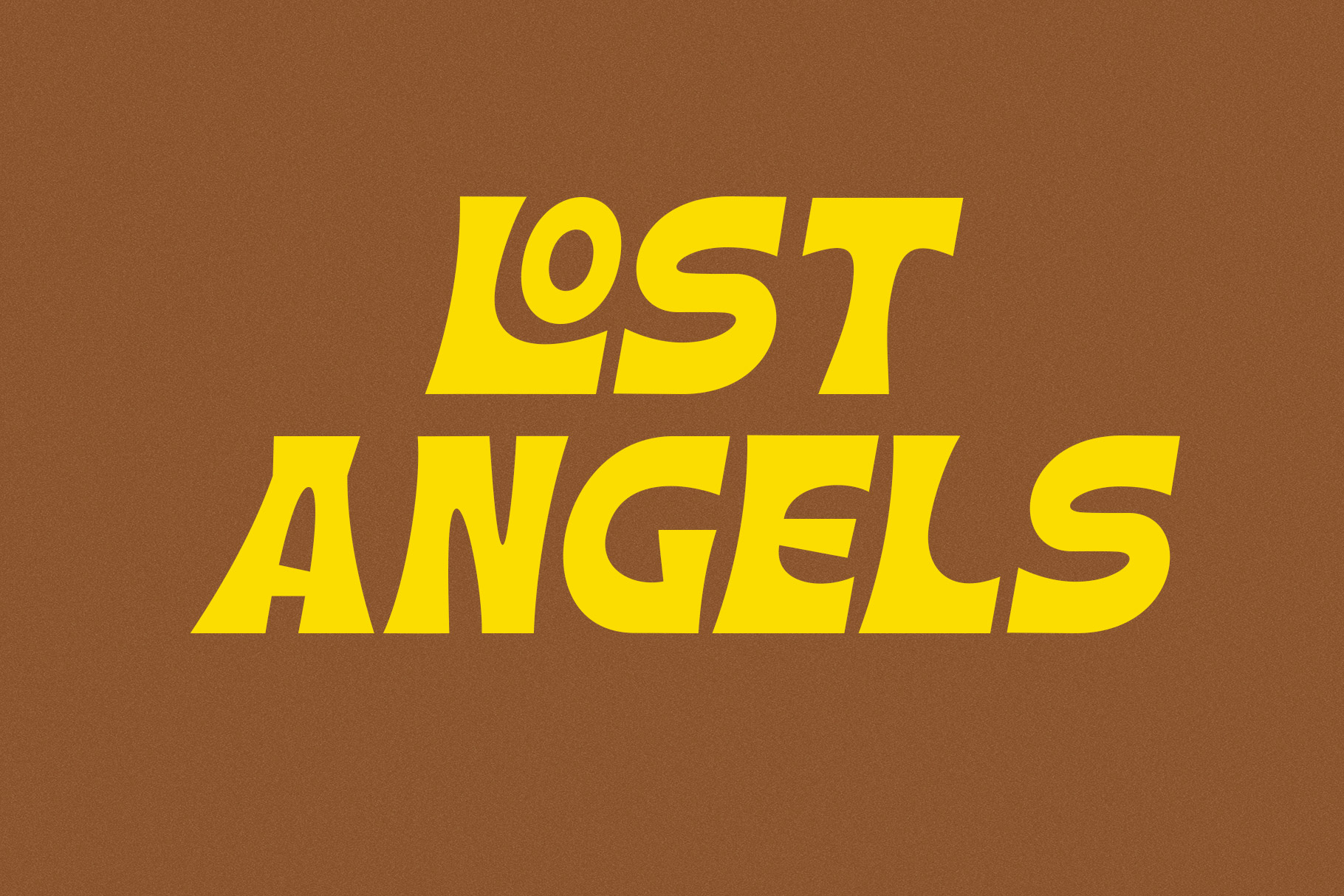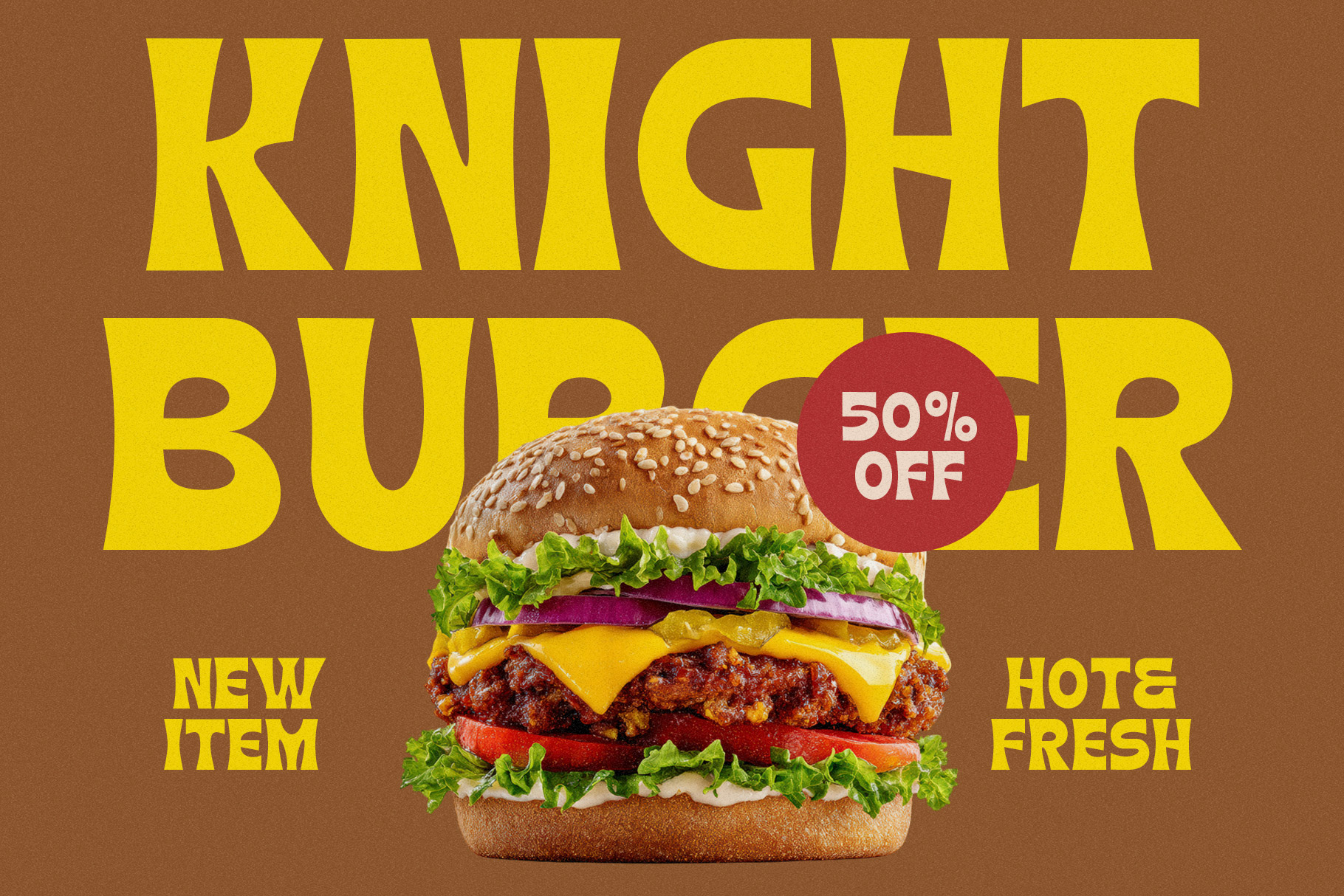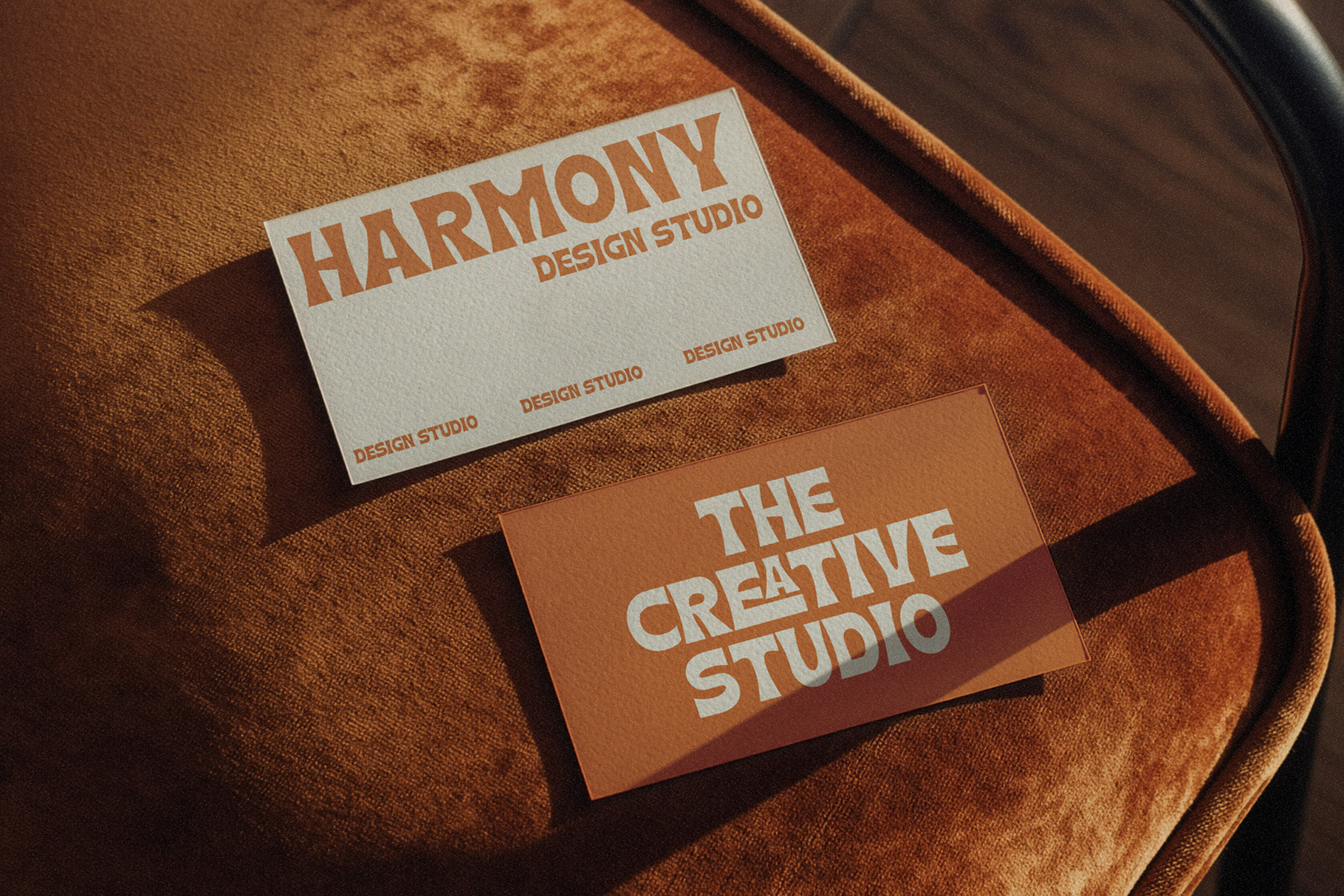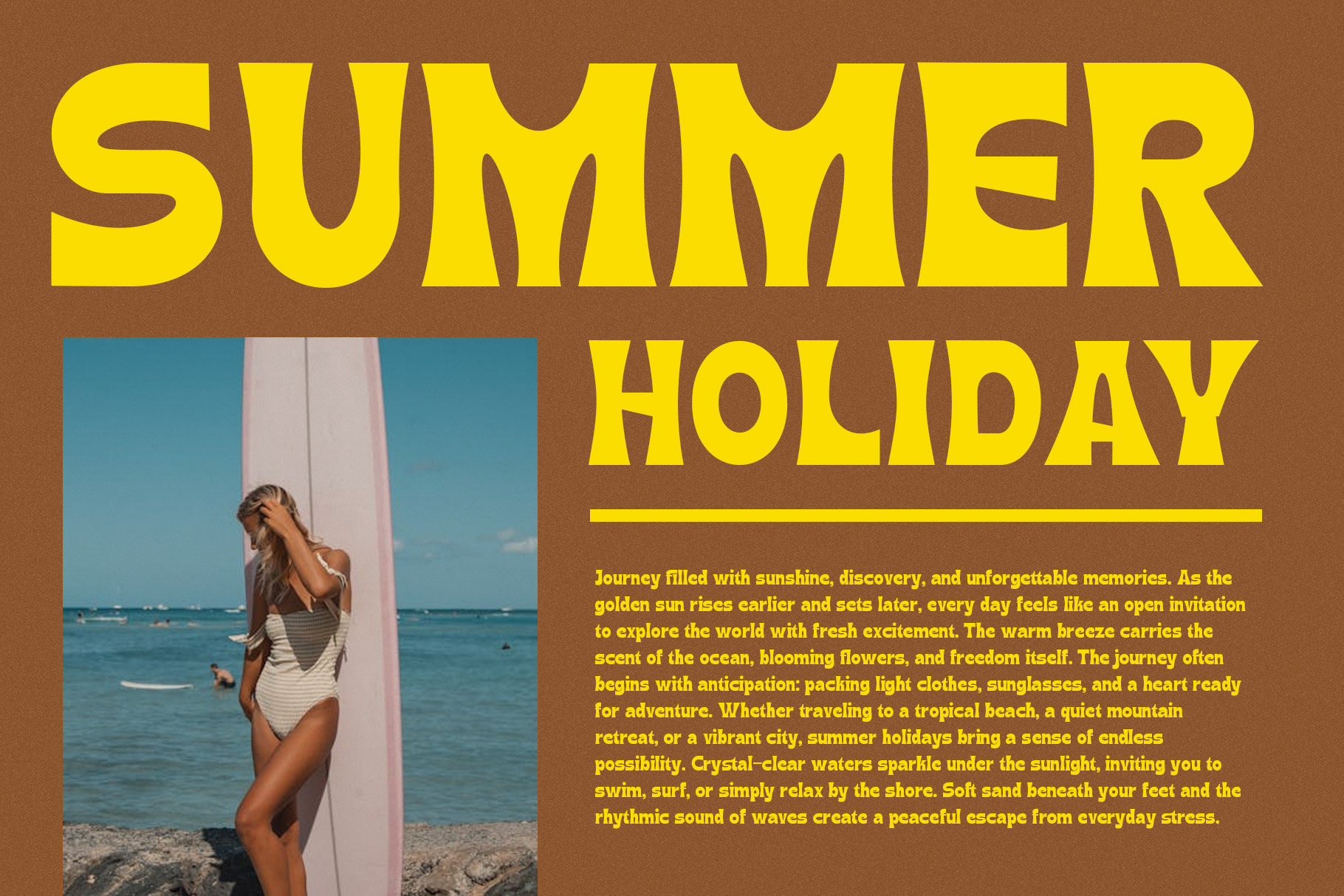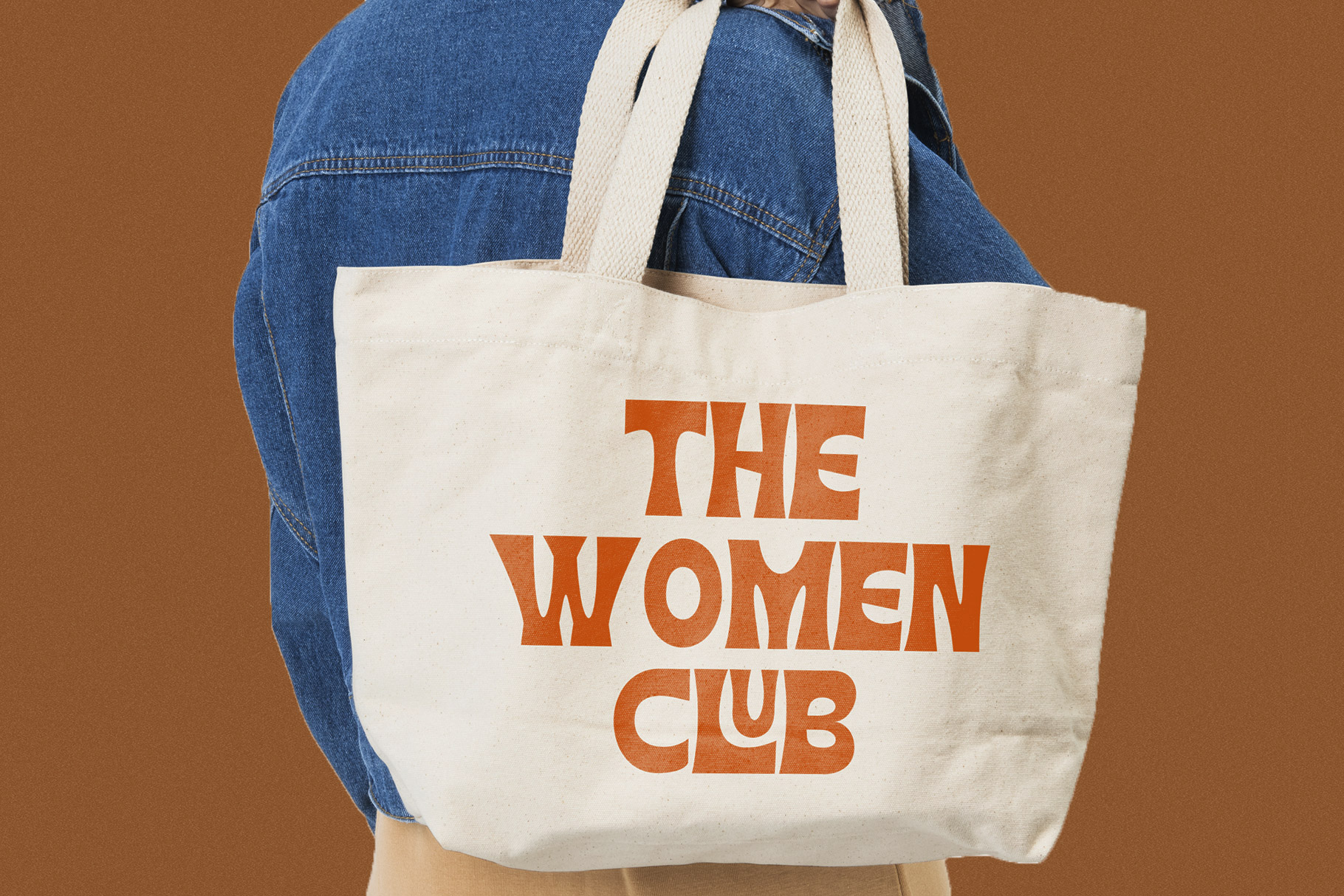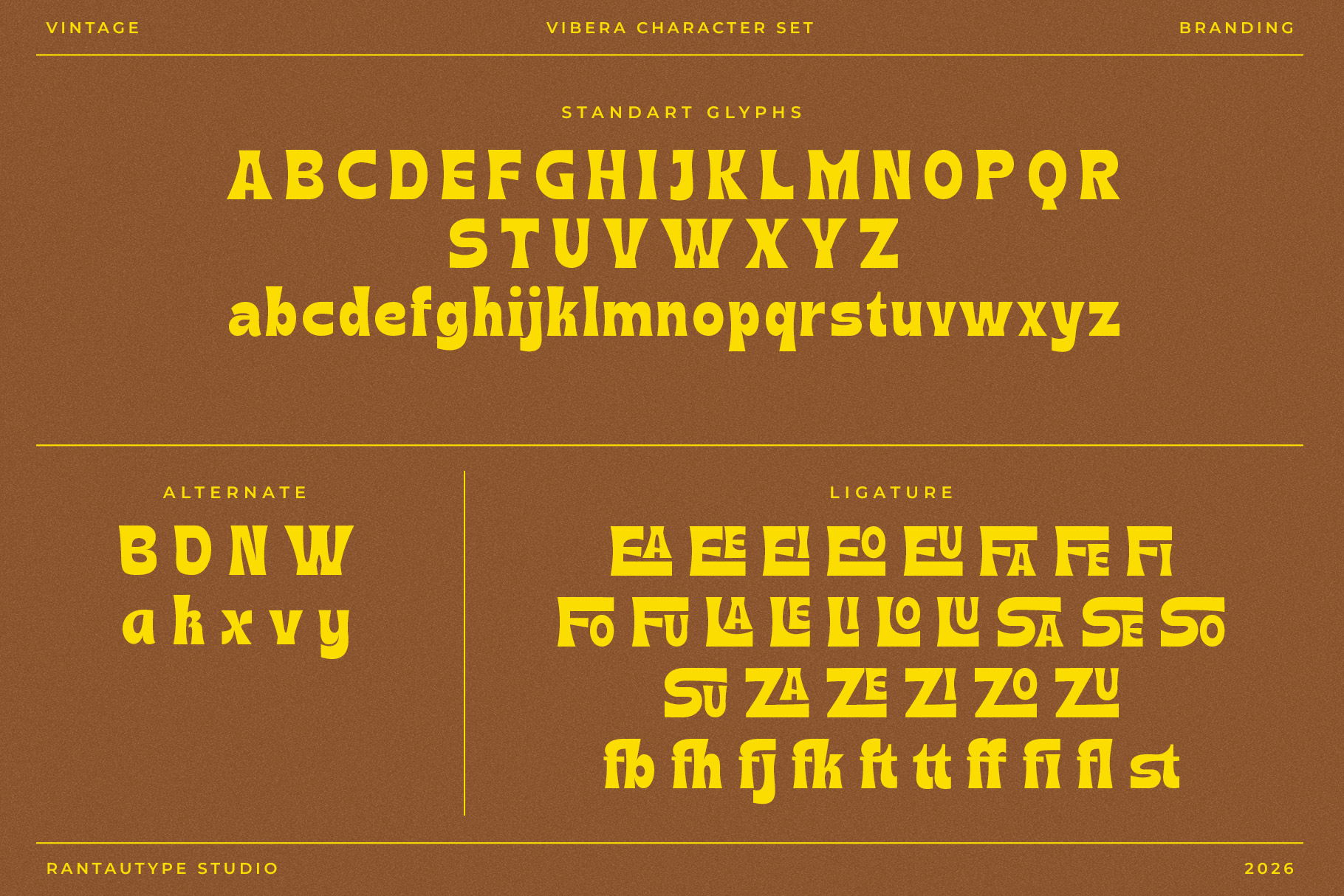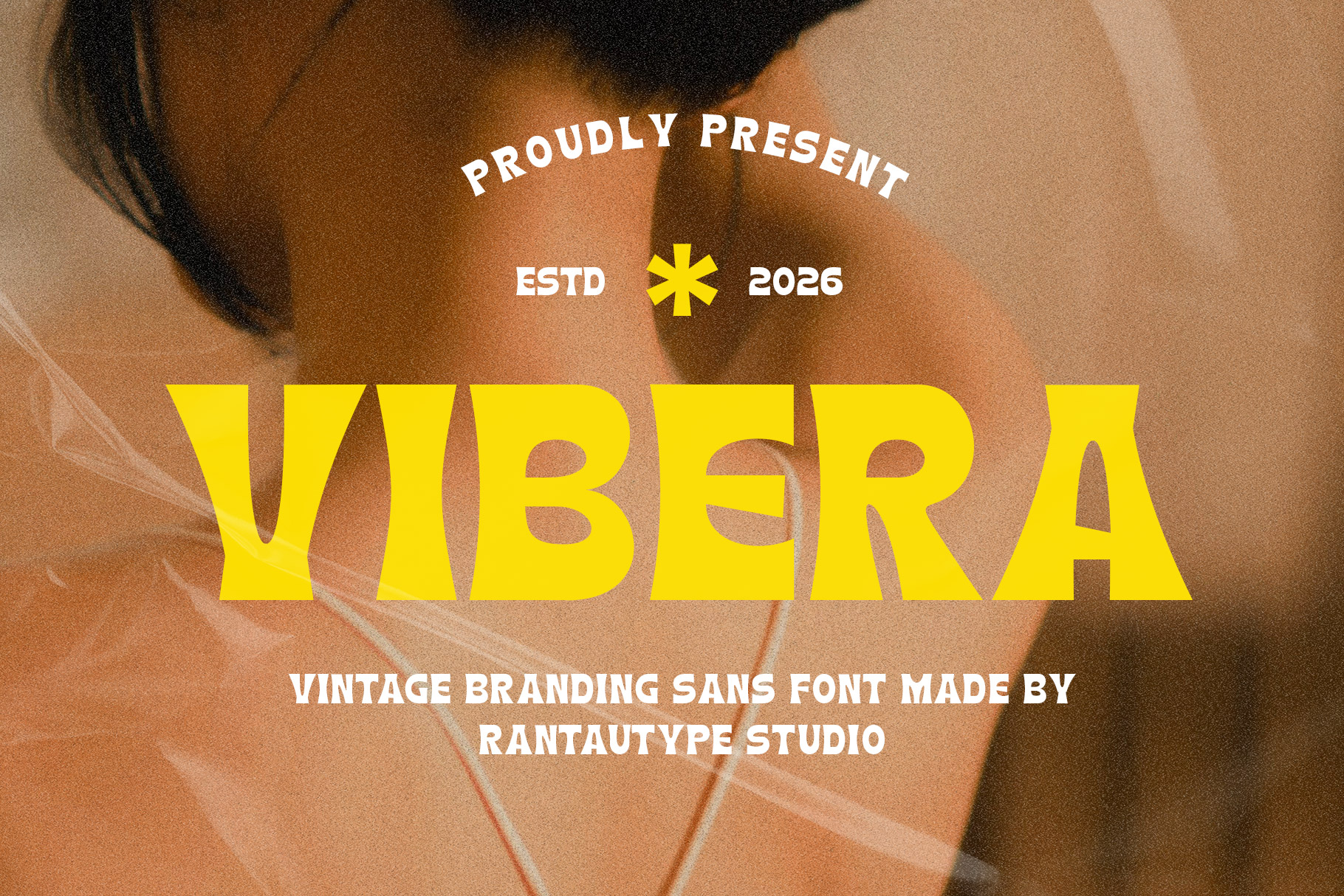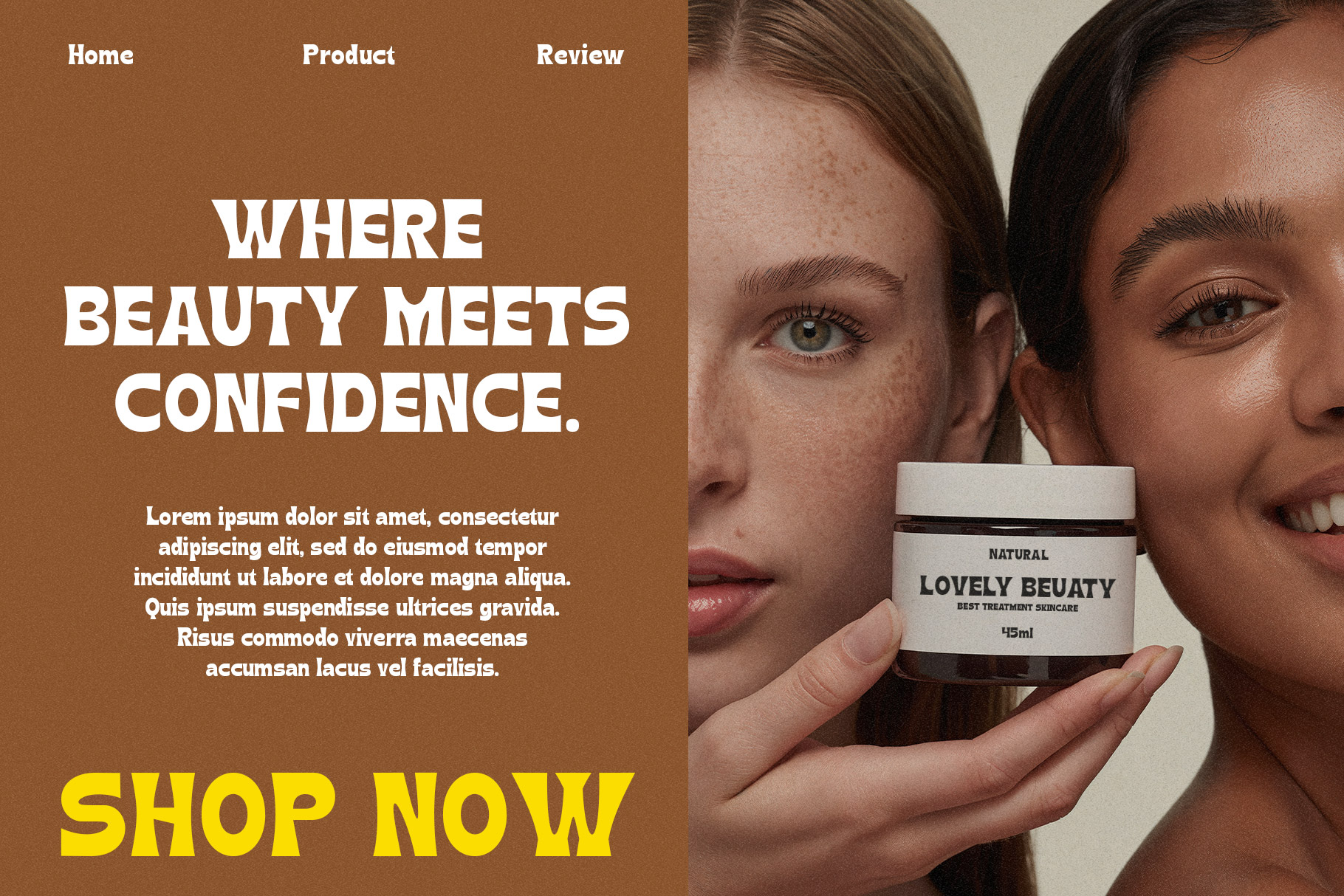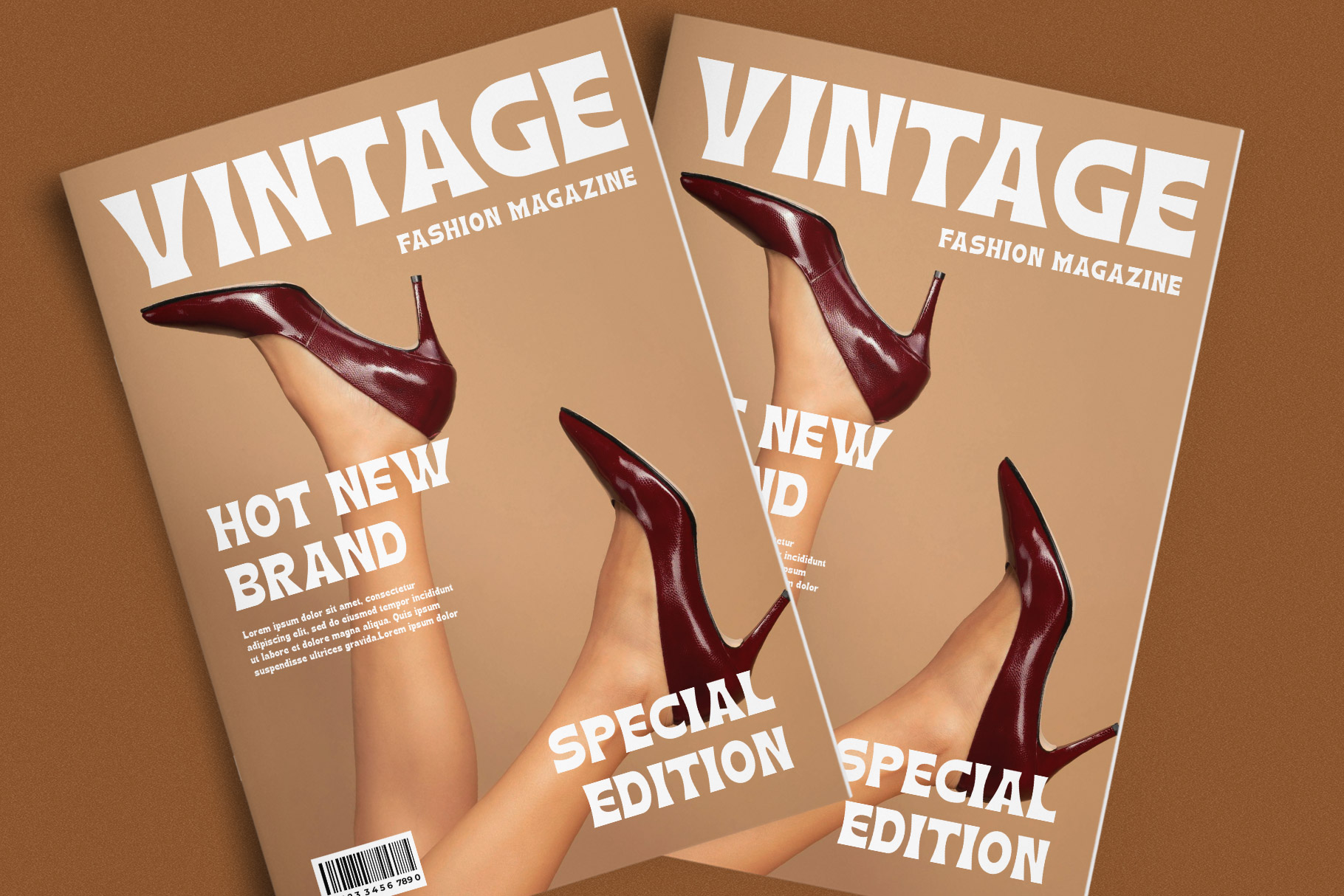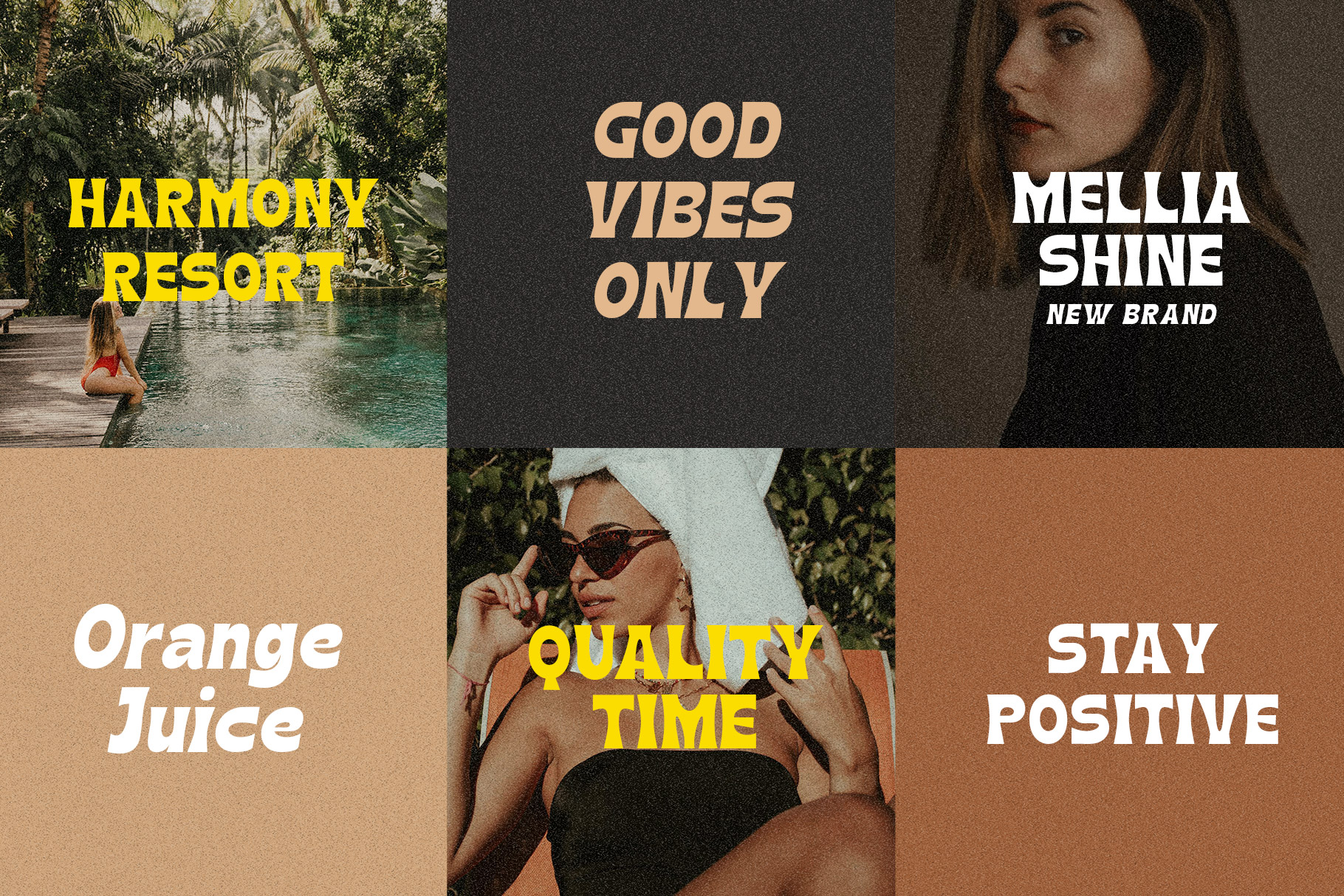
Vibera Vintage Branding Font
Vibera is more than just a font, it is a bridge between eras, carrying the warmth, character, and authenticity of the past into modern design. Inspired by classic signage, old packaging labels, retro advertisements, and handcrafted typography, a vintage font brings a timeless personality that instantly builds emotional connection and trust.
Vibera is a perfectly choice for any creative endeavor, creating, modern, lifestyle design such as logotype, title, cover, branding, invitations, wedding designs, display and magazine, social media posts, advertisements, printed quotes, product packaging, corporate brand, product designs, labels, photography, watermarks, special events and any other project with vintage touch.